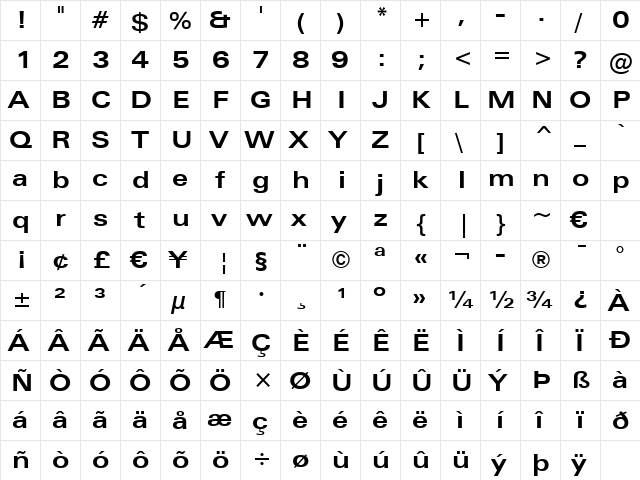
Zurich BdEx BT Bold
Design Context for Zurich BdEx BT Typeface
Zurich BdEx BT takes a measured approach to typography — its balanced proportions and neutral character make it a reliable workhorse for both digital and print work. Its bold stroke weight gives it real presence on the page.